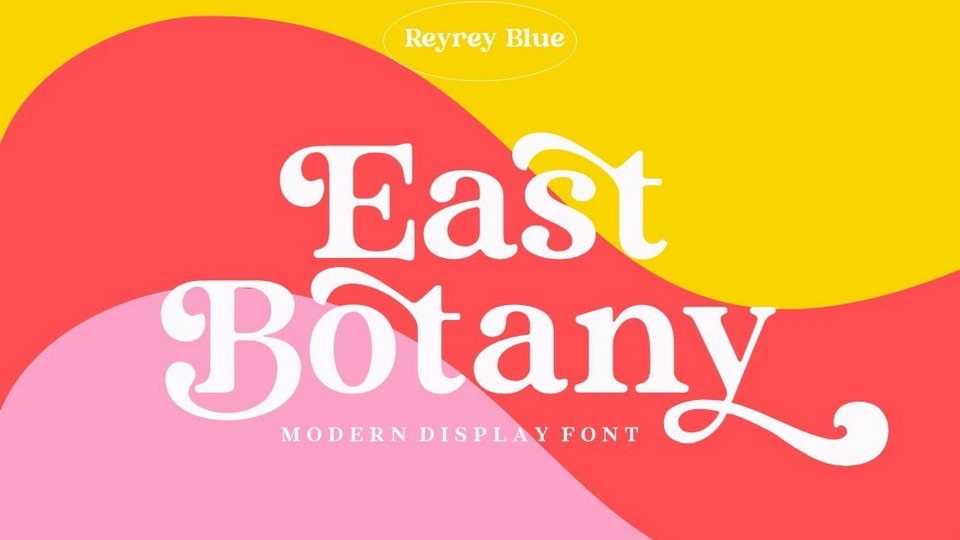
Download East Botany font, a new bold and stylish typeface with modern, groovy and retro look. East Botany font comes with large selection of alternate glyphs to give your any project to a unique design.
Designer: Reyrey Blue